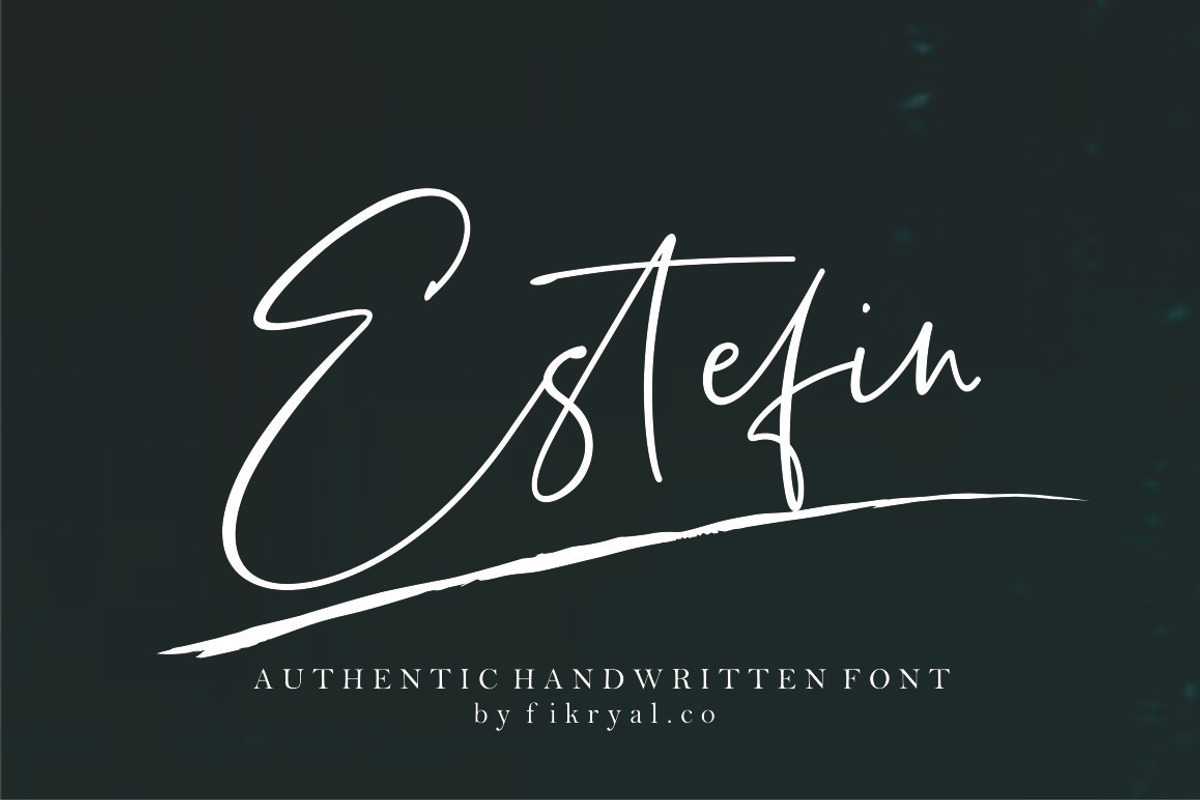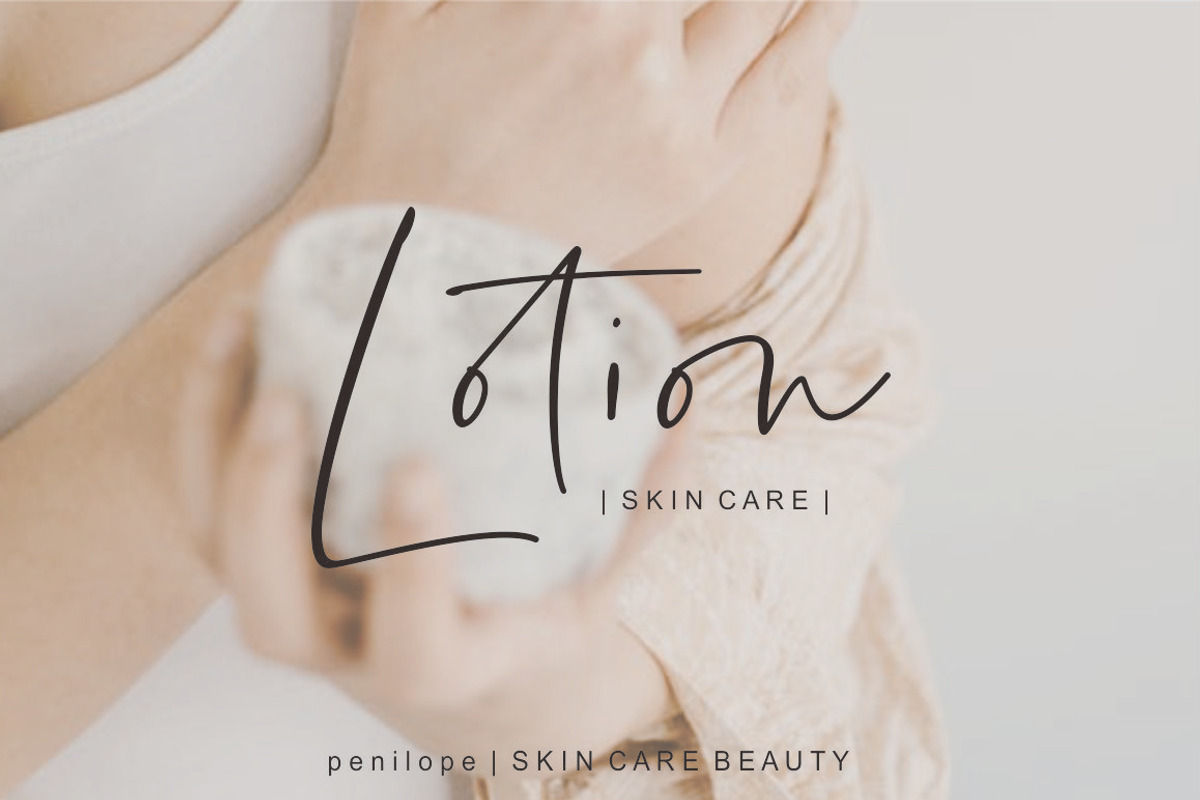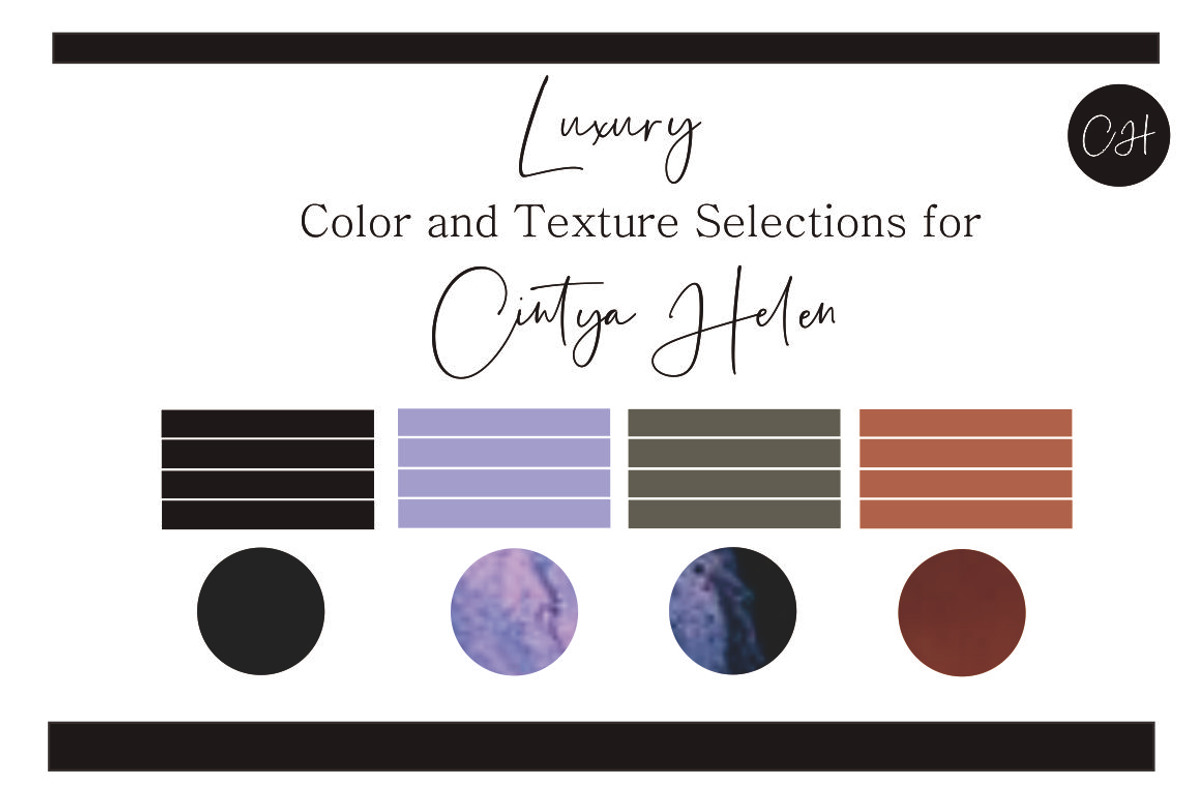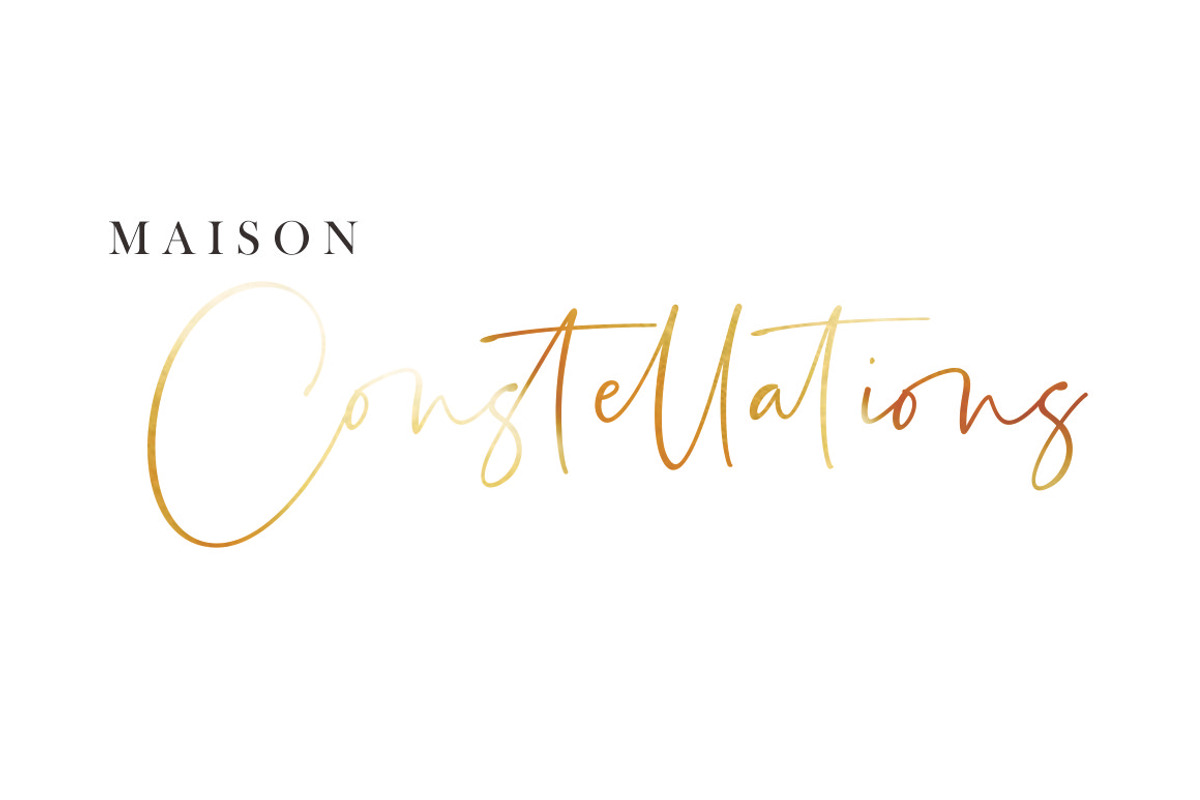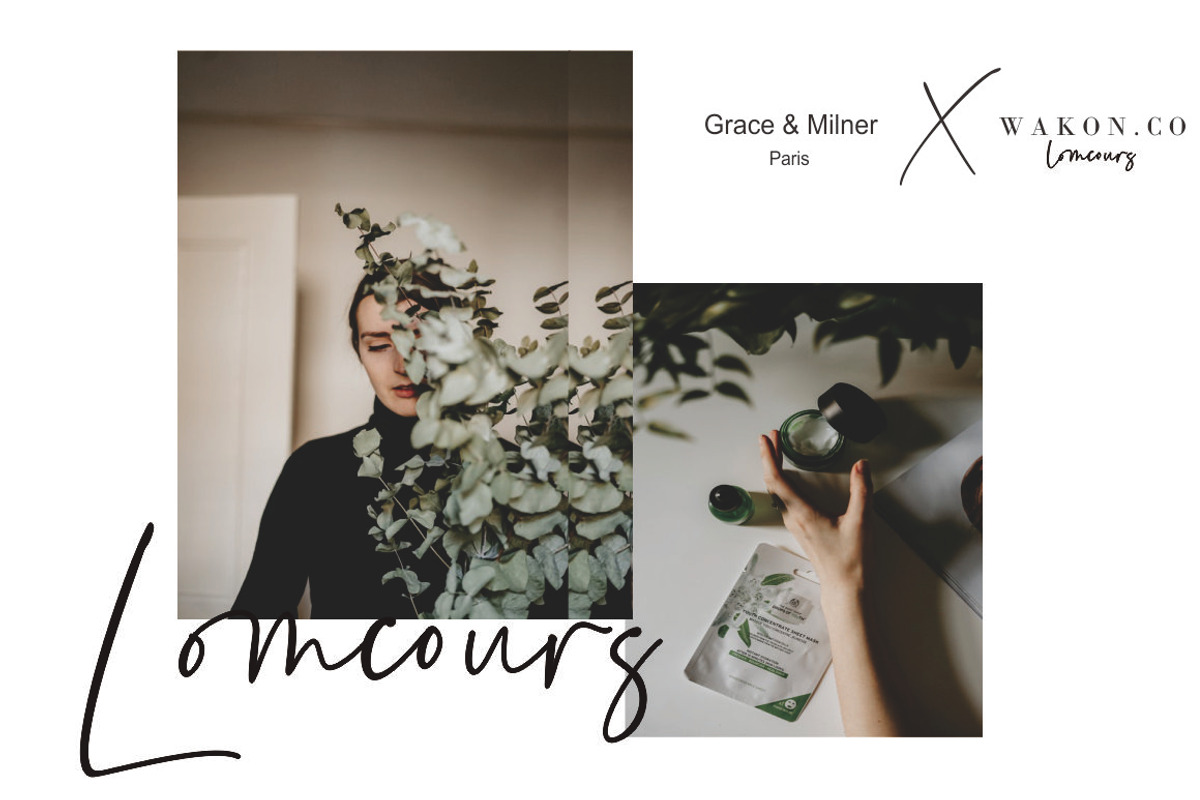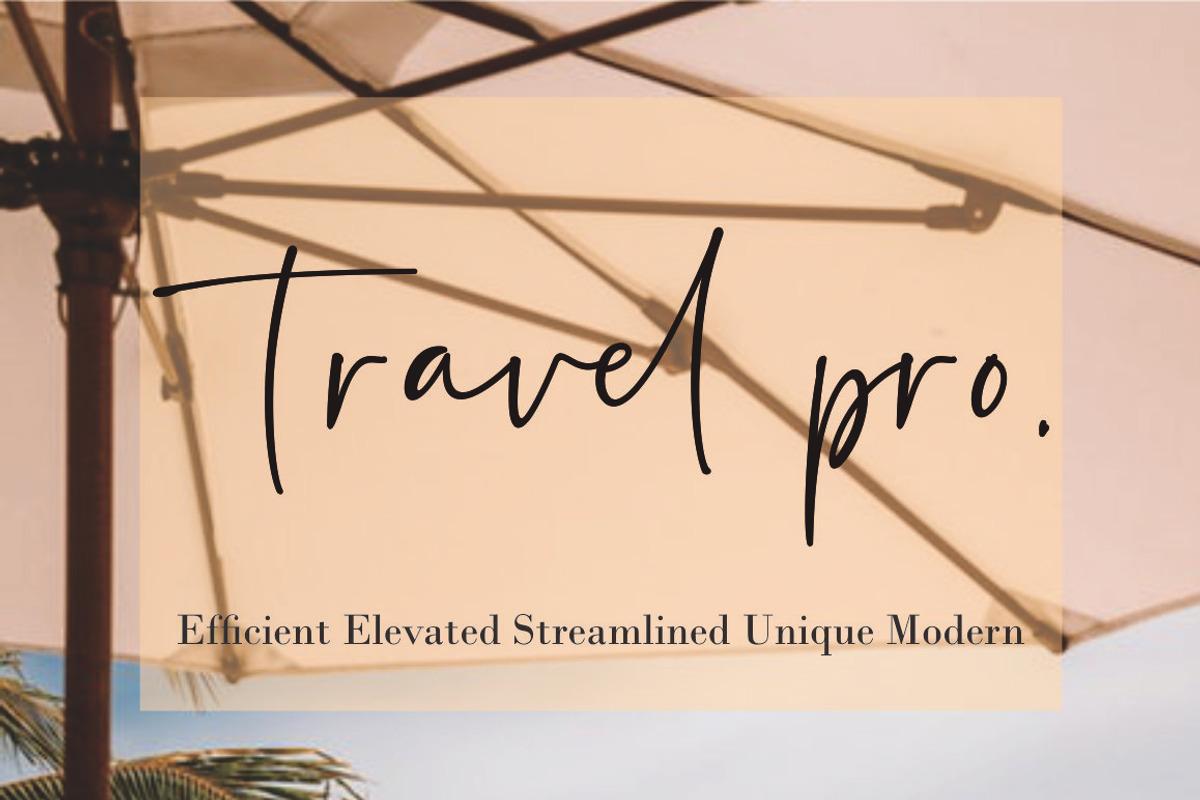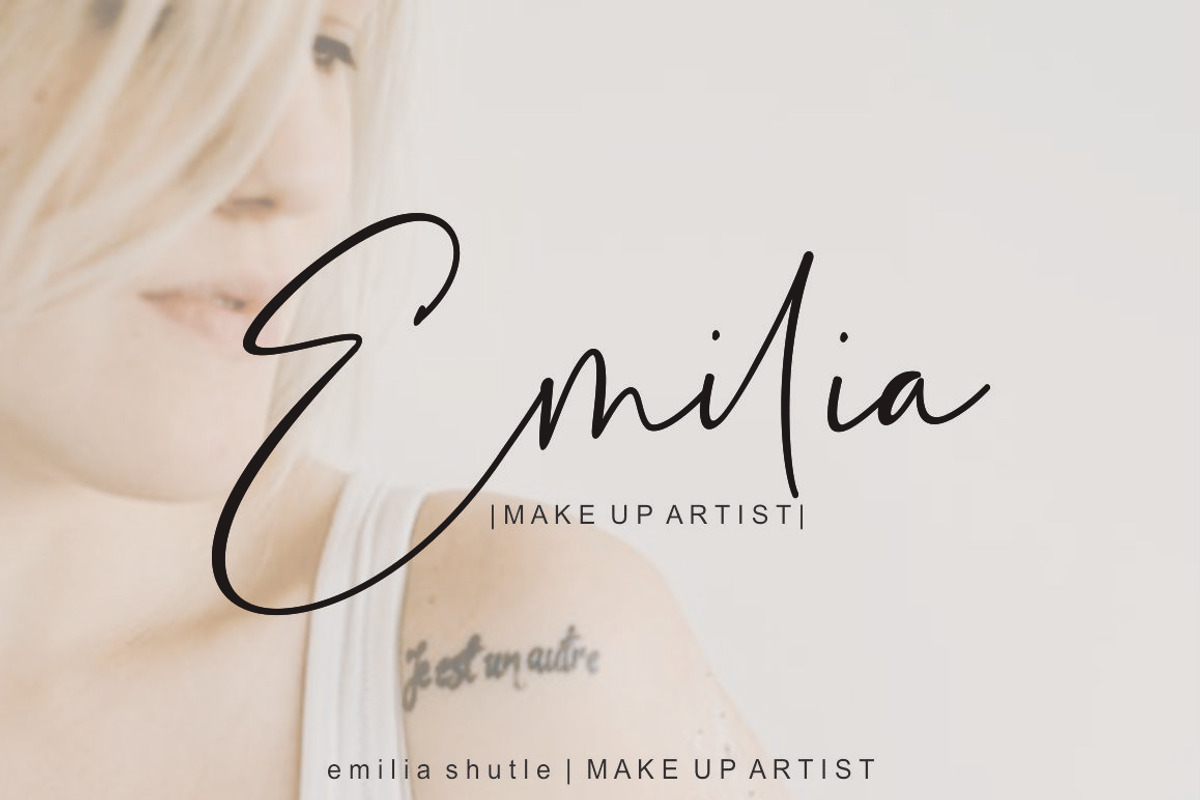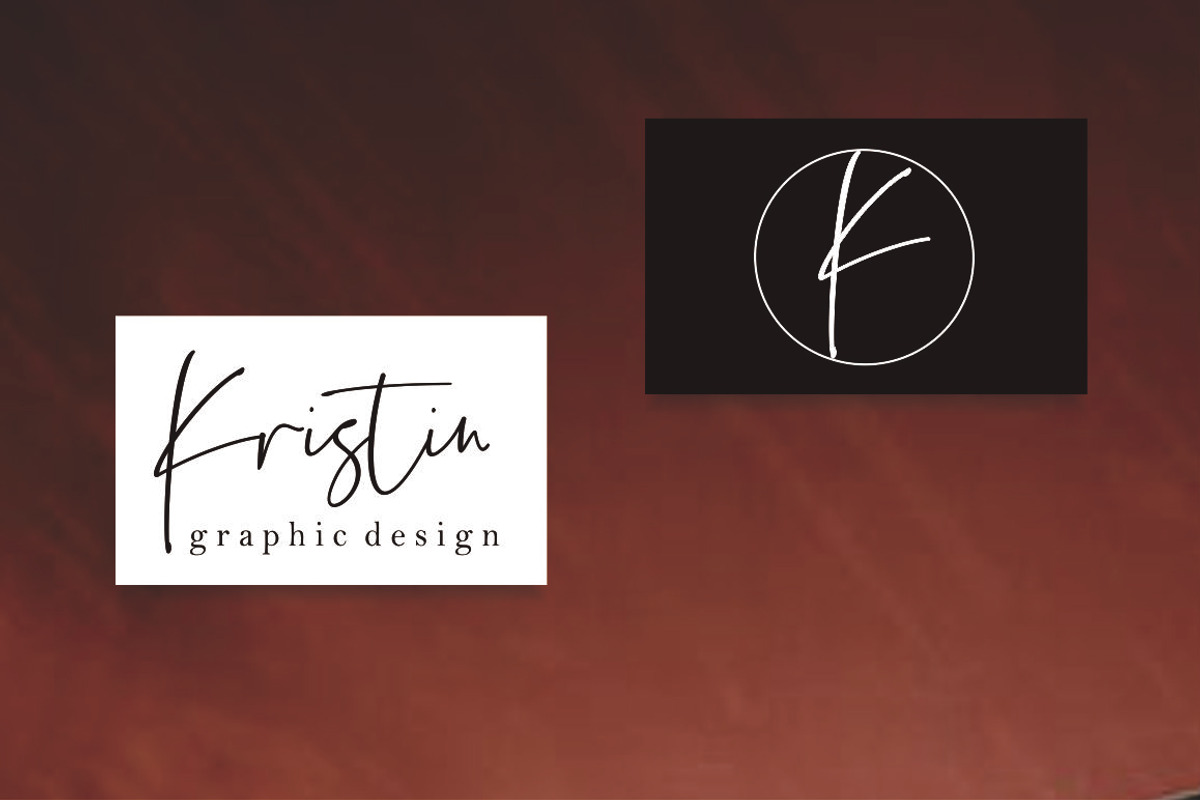
Estefin - Handwritten Font
Estefin – Font is a new stylish script font. It's perfect for logo, branding, title, social media posts, advertisements, product packaging, product designs, label, photography, watermark, special event, magazine, web design, etc. If you have any questions please don’t hesitate to contact me.